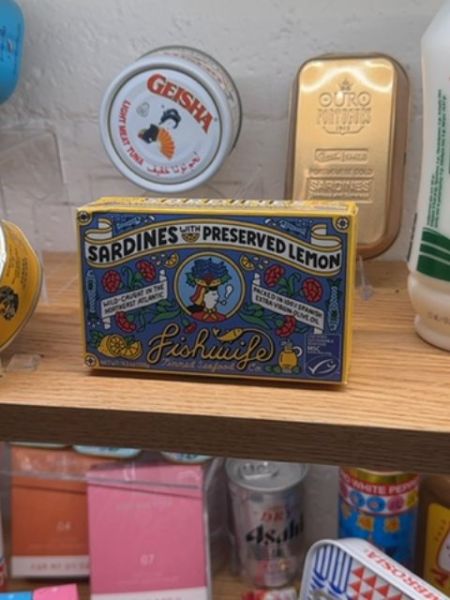
Fishwife Sardines with Preserved Lemon
This product is canned sardines paired with preserved lemon for added flavor, ideal for direct consumption or as a topping for various dishes.
The typography on the packaging uses a combination of bold and playful fonts, lending a nostalgic yet contemporary vibe. The font choice varies, with a more traditional serif style for the brand name 'Fishwife', complementing the hand-drawn illustrations on the packaging. The use of varying font weights and styles provides both emphasis and a touch of elegance.
The packaging features a vibrant and whimsical design with illustrated elements, including lemons and sardines. It uses a blue and yellow color scheme, which gives a fresh and lively impression. The box is compact, making it easy to store or transport.